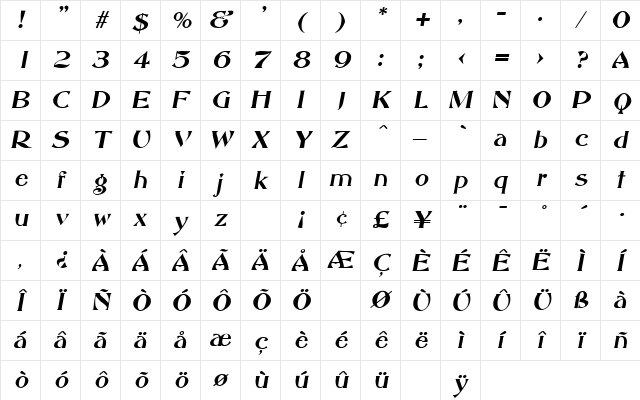
Abbey Old Style SF Italic
Complete Abbey Old Style SF Italic glyph index. Displaying only characters natively supported by Abbey Old Style SF Italic font.
Design Context for Abbey Old Style SF
Abbey Old Style SF is a composed and adaptable typeface that performs quietly and consistently across a wide range of design contexts. The slanted form adds forward momentum and visual energy.
Pro Tip: Use Abbey Old Style SF for emphasis, pull quotes, and subheadings where its slanted energy can add rhythm to the layout.